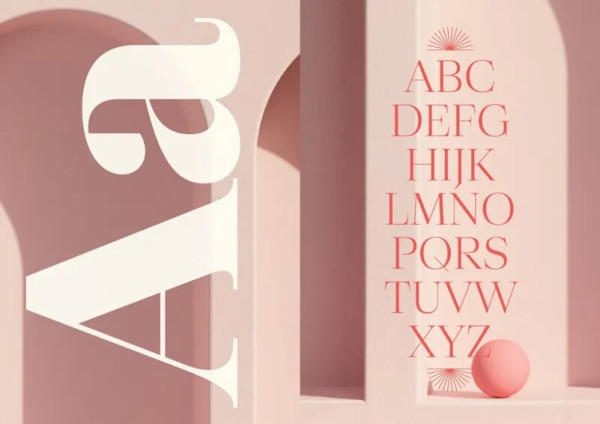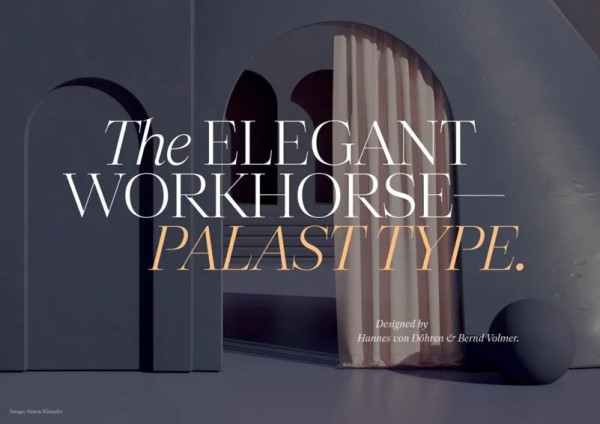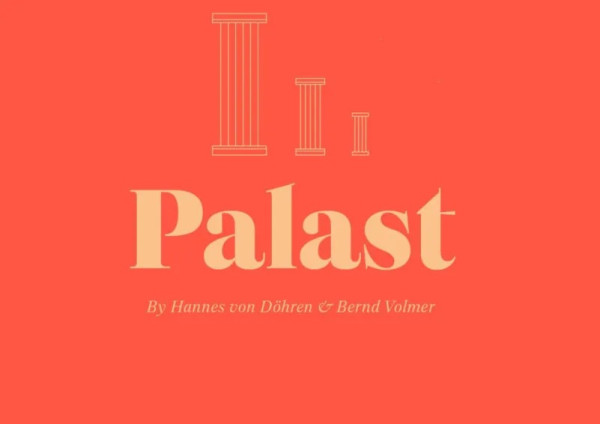
Palast Font
Palast Font is a modern, Friendly display font with sharply angled serifs. It’s a type system of three size-specific optical sub-families: Palast Poster, Palast Display & Palast Text designed by Hannes von Döhren & Bernd Volmer.
Palast Poster is intended for use in extra large sizes, at which the extreme contrast between thick and thin strokes looks spot on. Palast Display is designed for headlines, medium sizes and short text.
Palast Text has the lowest contrast of the three optical sizes, making it perfect for long texts in small sizes. The Palast type system comes in one variable font family that includes all optical sizes, bringing total flexibility to the user.